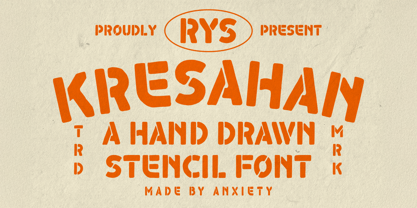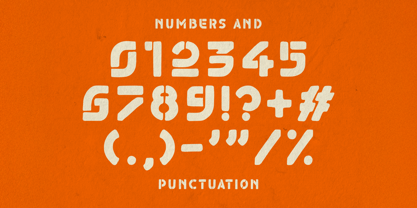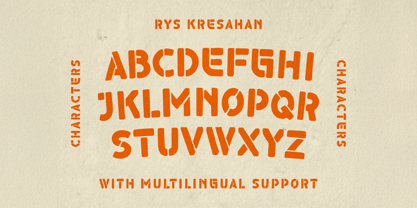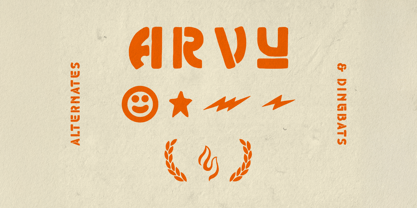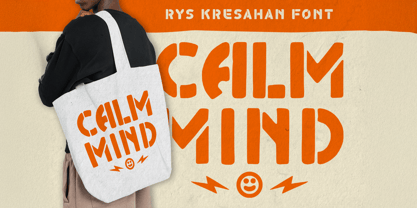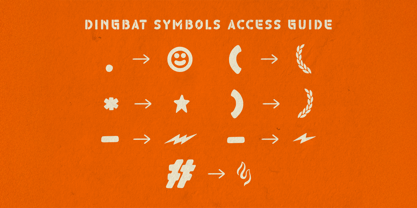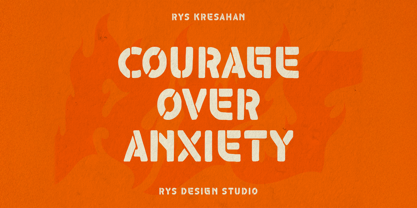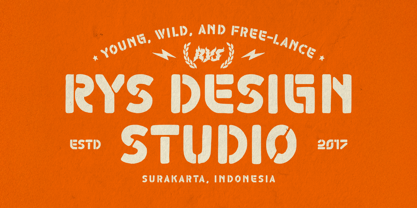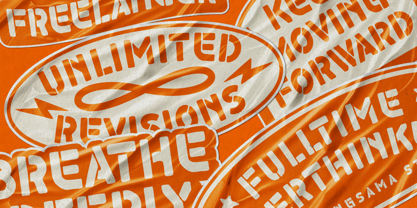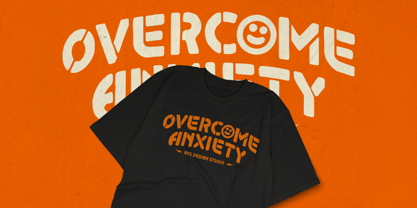
RYS Kresahan
by RYS Design Studio
The RYS Kresahan Font Family was designed by Witoko Aji Laksono and published by RYS Design Studio. RYS Kresahan contains 1 styles. More about this family
Introducing RYS Kresahan A Handdrawn Stencil Font.
It was inspired from vintage typography on street and military. This font is very suitable for application to displays and logos that require an authentic handmade touch, and various other formal forms such as t-shirts, posters, quotes, packaging, merchandising and other printing needs.
Designers: Witoko Aji Laksono
Foundry: RYS Design Studio